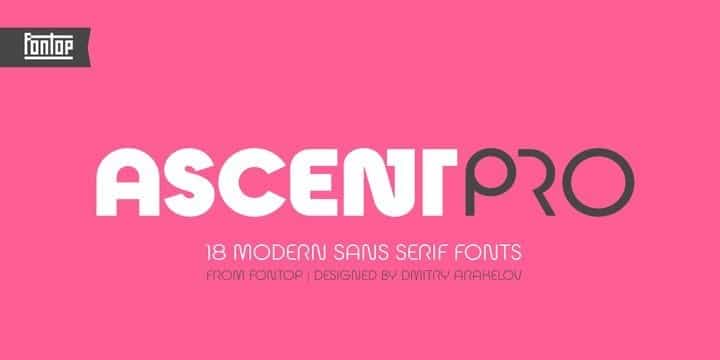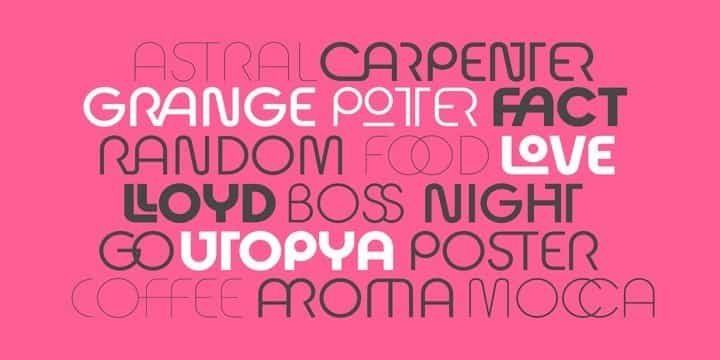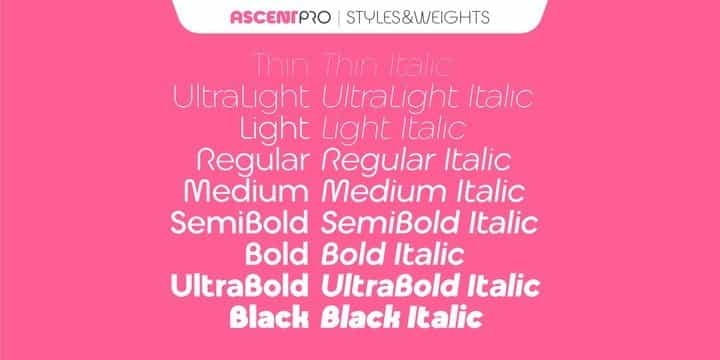
Discover Ascent Pro Sans Font Family, part of the Sans Serif collection—a versatile and unique font perfect for adding a personal touch to your projects. Download it for free and enjoy crafting designs with style, from invitations to social media posts. This font is available exclusively for personal use, giving you the freedom to create without limits. Unlock your creativity with Ascent Pro Sans Font Family today!
Ascent Pro – A striking geometric sans serif with an alluring design! Attractive yet flexible, AscentPro comes packed with numerous ligatures and stylistic alternatives for maximum choice – ideal for headlines, logos, packaging design, posters business cards and much more!